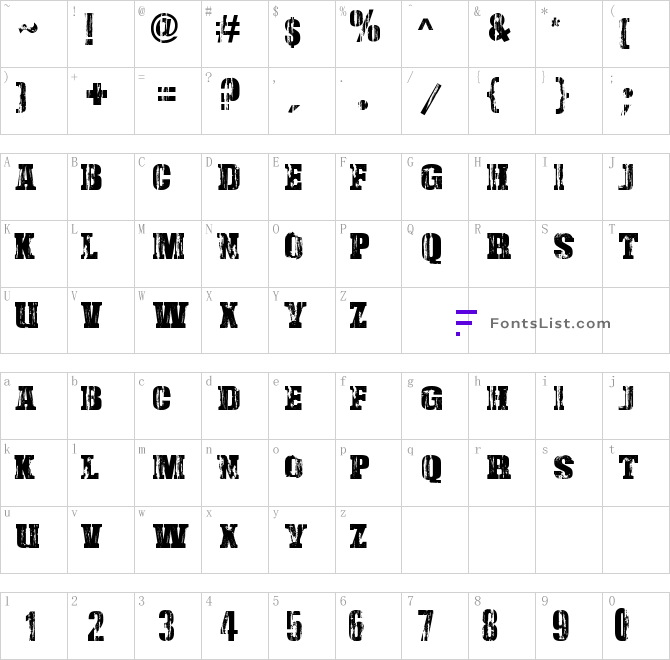
- Font Name:Damaged Serif
Damaged-Serif.ttf is a very beautiful artistic font, Damaged-Serif.ttf is widely used in the design and printing of various books and pictures,Damaged-Serif.ttf has a strong visual impact,Damaged-Serif.ttf is a commonly used font in newspapers, magazines and books, and is used in posters, e-commerce Poster design, store design, logo design, font design and other fields.Damaged-Serif.